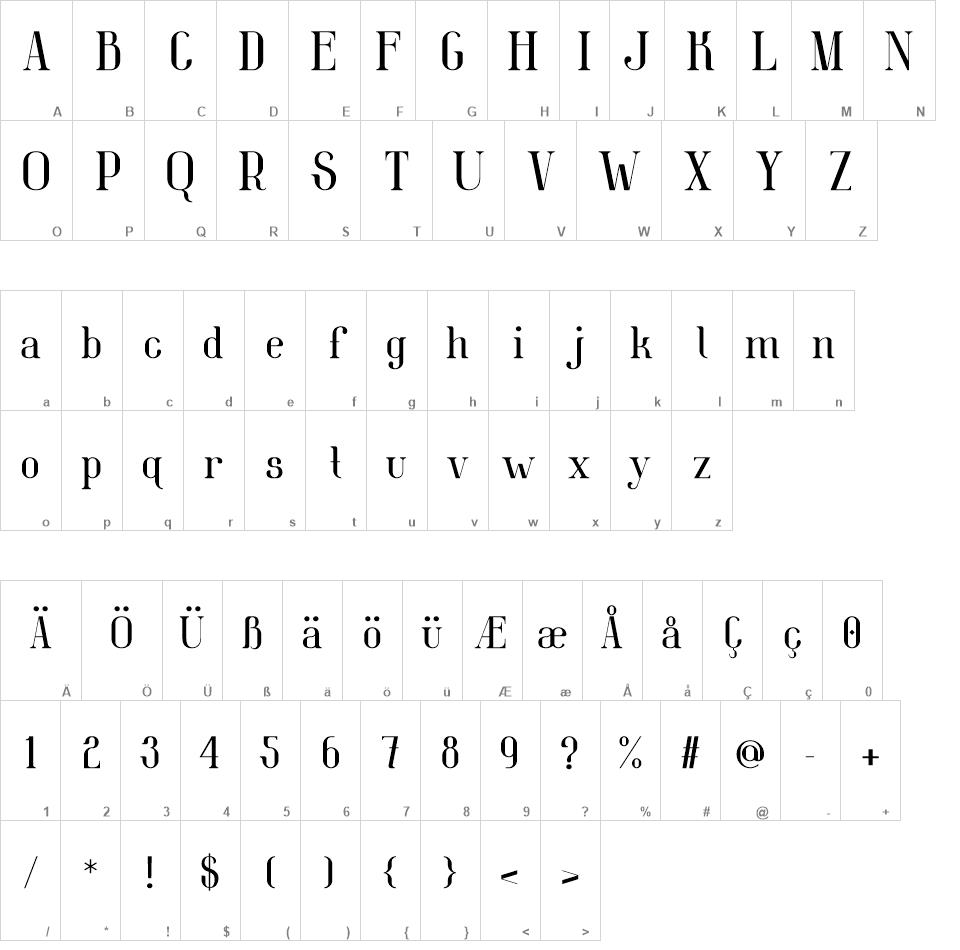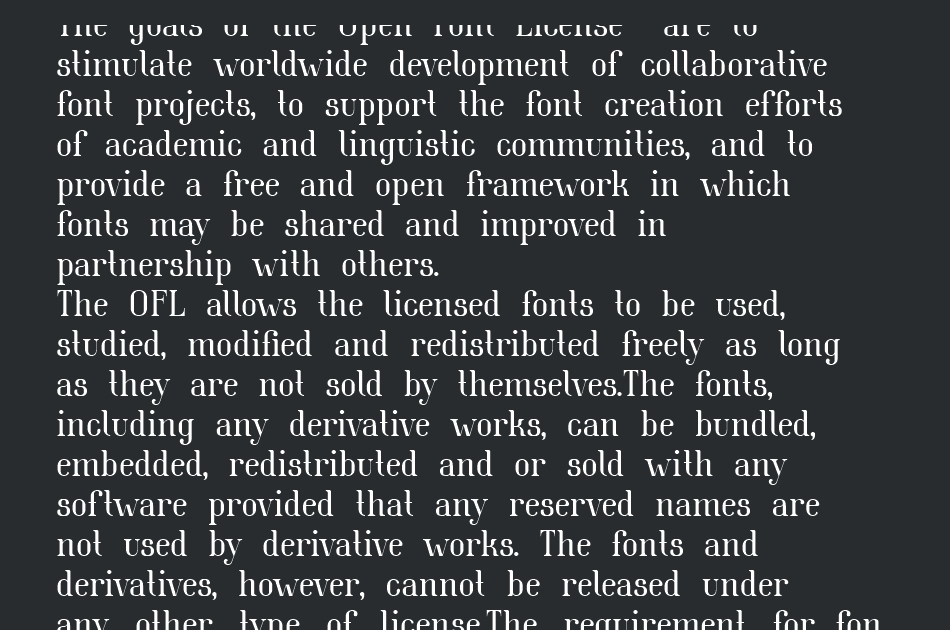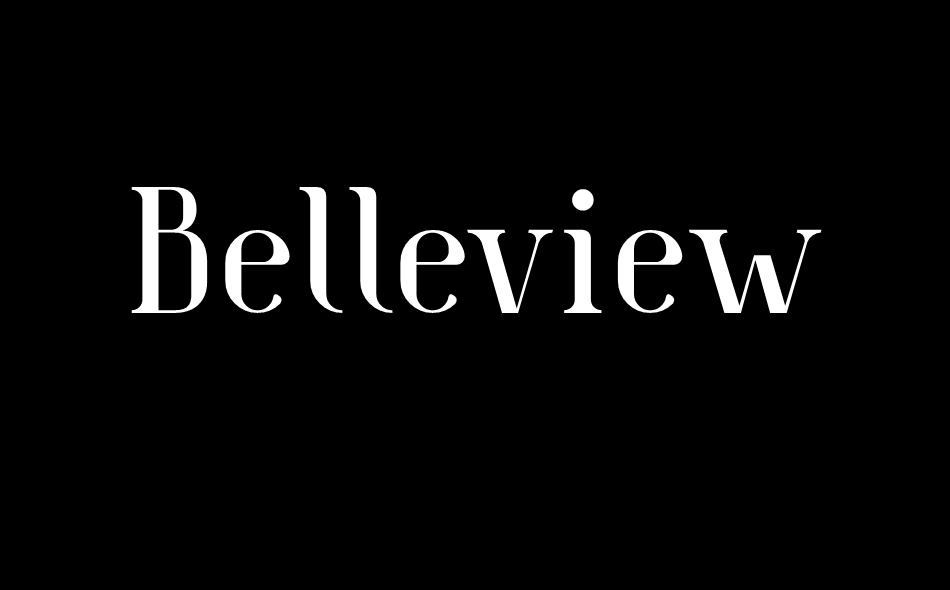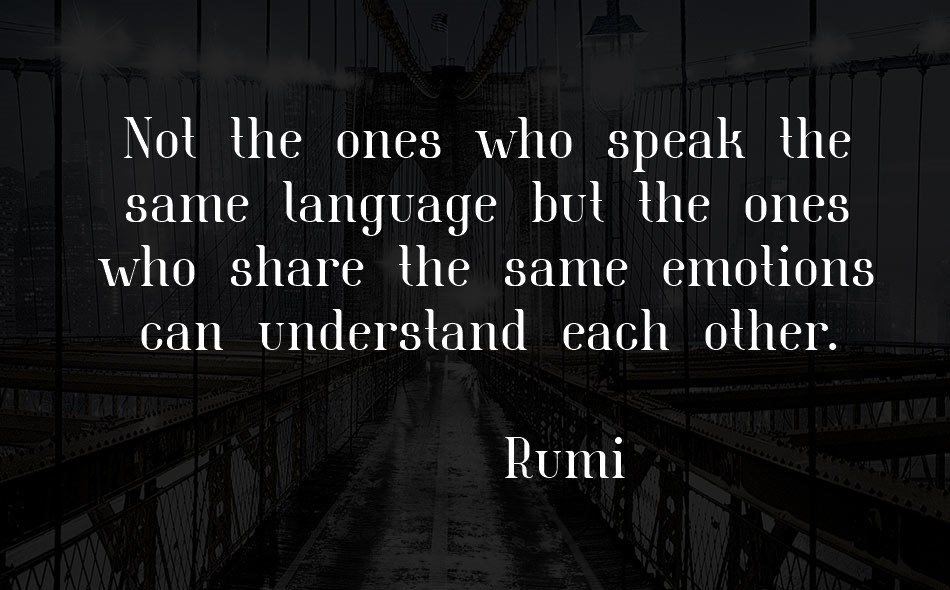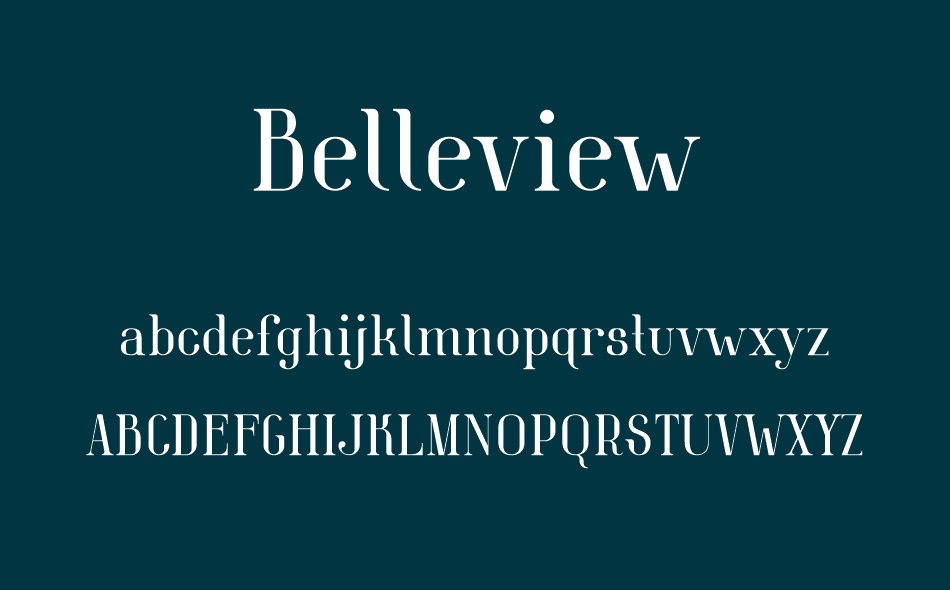
Belleview font
A tall high contrast serif font.
Belleview has international character support with more than 450 characters.
Belleview font
Belleview:
A tall high contrast serif font. Belleview has international character support with more than 450 glyphs. ©Thor Christopher Arisland